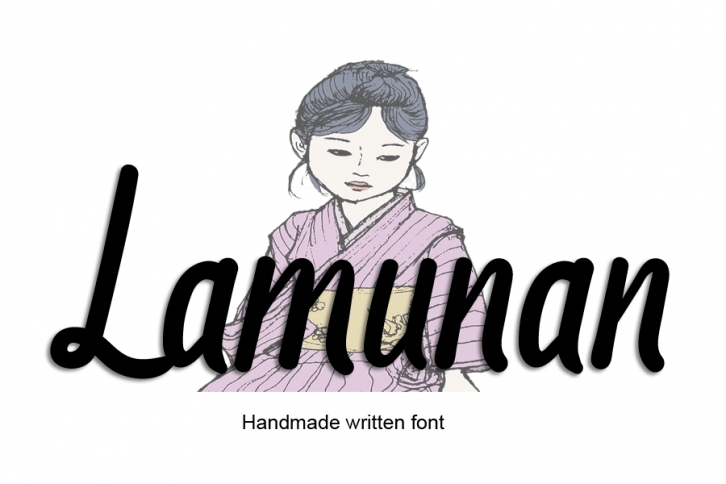
Lamunan is a gorgeous handwritten font that will make your work stand out through its elegant and curvy lines. It is perfect for product packaging, branding projects, magazine covers, social media, weddings, or just used to express words above the background.